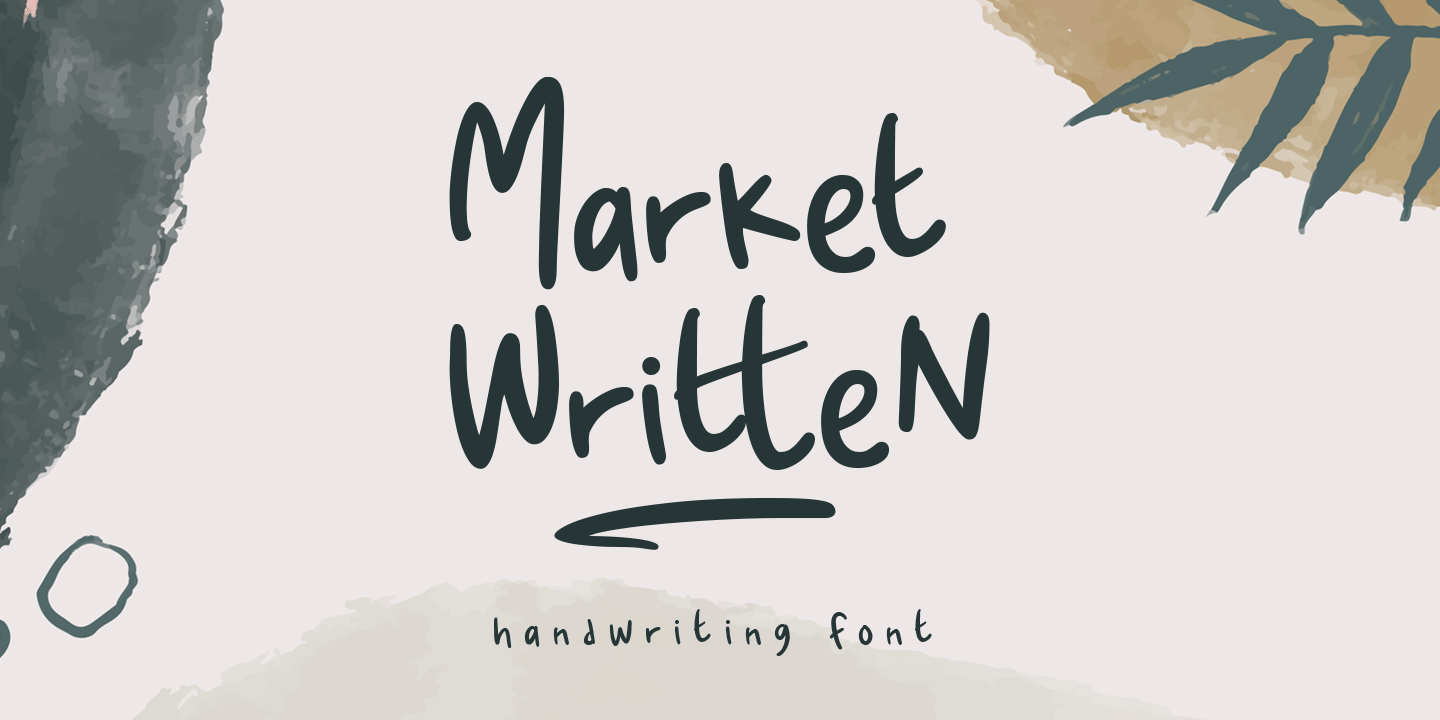
Market Written Font is perfect for farmers market branding, local grocery store signage, artisan food vendor communications, organic produce packaging, handmade craft booth materials, community market promotions, local business directories, and authentic neighborhood commerce marketing. This genuine typeface excels in applications where local authenticity, handcrafted charm, and community connection are essential for connecting with audiences who appreciate supporting local businesses and the personal touch of neighborhood marketplace experiences.
What makes Market Written Font so exciting is its authentic embodiment of local marketplace character and community commerce warmth that perfectly captures the essence of handwritten vendor signs and the personal connection of neighborhood shopping. The font features natural, hand-lettered characteristics with authentic imperfections that evoke chalkboard price signs and handwritten market labels. Its community character conveys authenticity, local pride, and personal service - essential qualities for brands serving local communities, small businesses, and audiences who value neighborhood commerce, artisan craftsmanship, and the genuine relationships that flourish in community marketplace settings.
The Market Written Font family includes multiple handcrafted weights and market-inspired variations that enhance its local appeal. Some versions feature chalk-like textures and natural writing variations that simulate authentic market signage, while others provide cleaner variants that maintain the font's handwritten character with improved readability for professional local business applications and commercial community market communications.
Whether you're creating branding for local businesses, designing materials for farmers markets, or developing marketing campaigns for community commerce, Market Written Font Free Download provides the authentic local character your project requires. The font's handwritten appeal makes it particularly effective for brands targeting community-minded audiences who appreciate local shopping, artisan products, and the warm personal connections of neighborhood marketplace experiences.